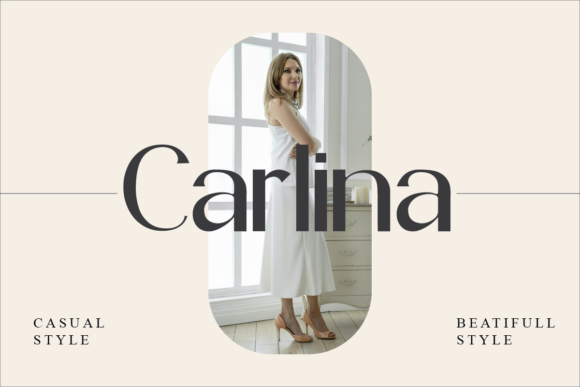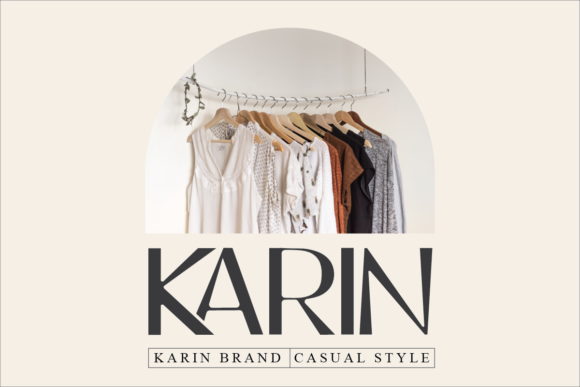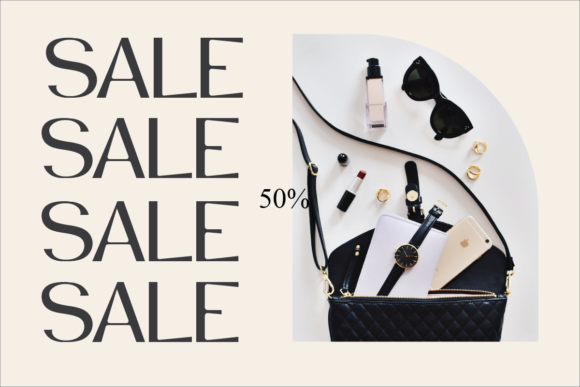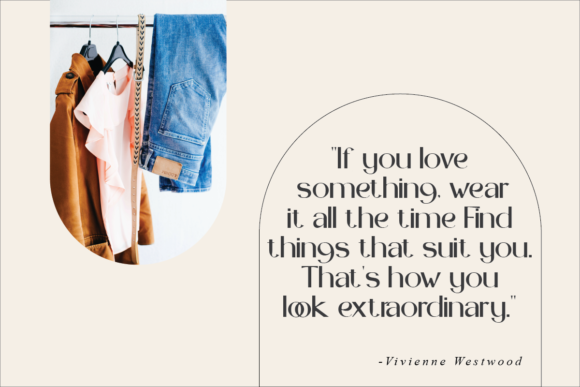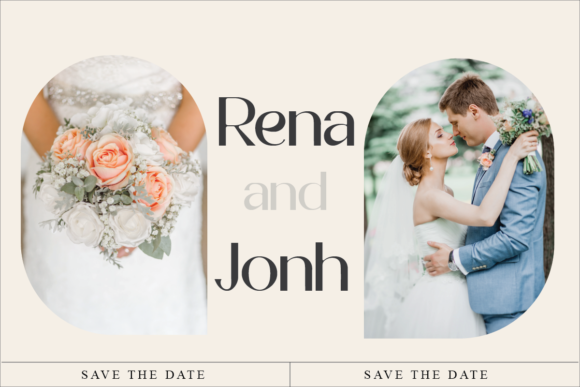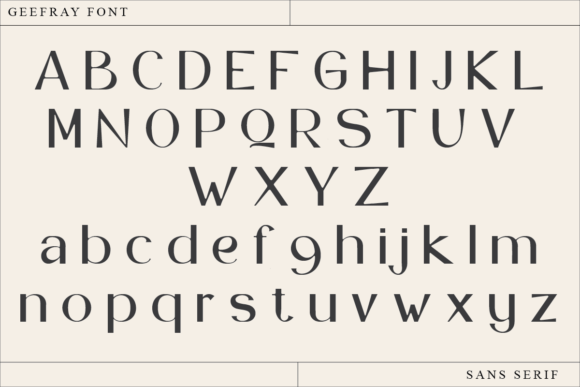
Introducing Geefray Font: Elevate Your Designs with Modern Elegance
In the world of typography, a font can make or break a design. For designers and crafters seeking to create visually stunning and modern pieces, Geefray Font is an exceptional choice. This modern sans serif font is specifically crafted to cater to various branding needs, ensuring your creations exude style and sophistication.
The Essence of Geefray Font
Geefray Font is more than just a typeface; it’s a design statement. Its clean lines, precise curves, and balanced proportions make it an ideal choice for projects requiring a touch of modernity. Whether you’re working on a logo, brochure, website, or any other visual material, Geefray Font guarantees to elevate your design to new heights.
Key Features of Geefray Font
- Modern Sans Serif Design: Geefray Font boasts a contemporary sans serif design that fits perfectly into today’s design trends, making your work instantly recognizable and relevant.
- PUA Encoding: Being PUA (Private Use Area) encoded is a significant advantage of Geefray Font. This encoding allows easy access to all glyphs and swashes, providing designers with the flexibility to experiment and create unique designs without hassle.
- Stylish and Versatile: Geefray Font is not just stylish; it’s also incredibly versatile. It can be used across various platforms and design projects, from digital media to print materials, ensuring consistency and professionalism in your branding.
- Enhanced Readability: One of the critical aspects of any font is readability. Geefray Font excels in this area, ensuring that your message is conveyed clearly and effectively, whether it’s on a billboard, a website, or a product label.
Applications of Geefray Font
The versatility of Geefray Font makes it suitable for a wide range of applications:
- Branding and Logos: Create memorable and impactful logos that stand out in the market.
- Digital Media: Enhance your website, social media posts, and digital advertisements with a modern and engaging typeface.
- Print Materials: From business cards to billboards, Geefray Font ensures your print materials look professional and captivating.
- Packaging: Make your product packaging stand out on the shelves with a stylish and modern font.
Why Choose Geefray Font?
In a sea of fonts, Geefray Font stands out for several reasons:
- Uniqueness: Its modern design ensures your work doesn’t get lost in traditional or overly used typefaces.
- Legibility: It offers excellent readability, ensuring your message is always communicated effectively.
- Flexibility: With PUA encoding, you have the freedom to explore a wide range of design possibilities.
Geefray Font is a game-changer for designers and crafters looking to infuse their projects with a modern and stylish touch. Its versatility, combined with its aesthetic appeal and technical advantages like PUA encoding, makes it an invaluable asset in your design arsenal. Whether you’re aiming to create a brand identity, enhance your website, or simply explore new design horizons, Geefray Font is poised to bring your visions to life in a stylish and impactful way.
Don’t settle for ordinary designs. With Geefray Font, you have the opportunity to push the boundaries of creativity and produce work that not only looks great but also communicates effectively. Dive into the world of modern typography with Geefray Font and discover how it can transform your designs.